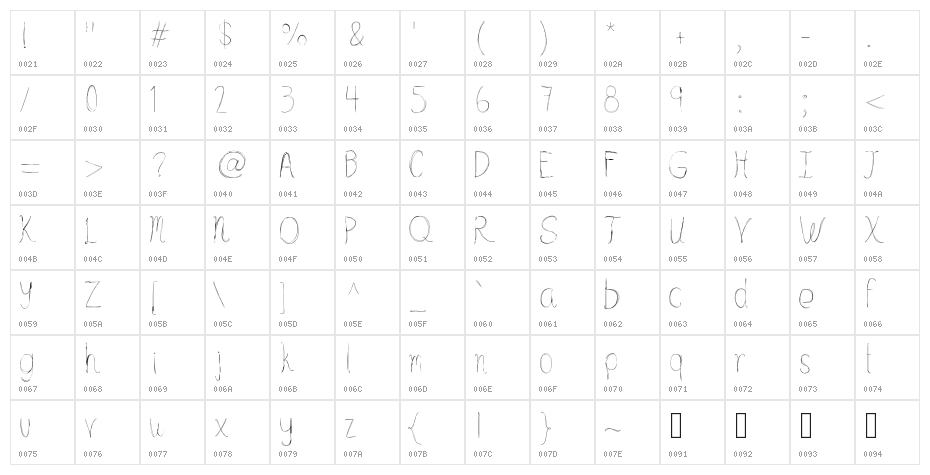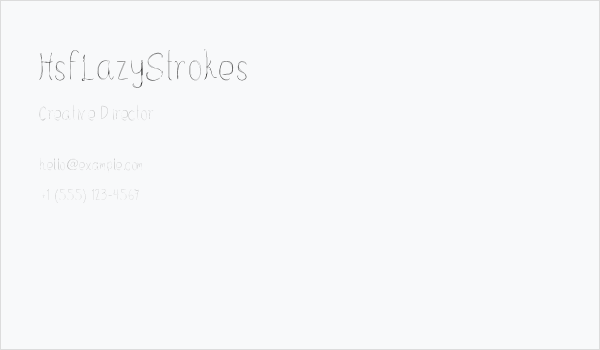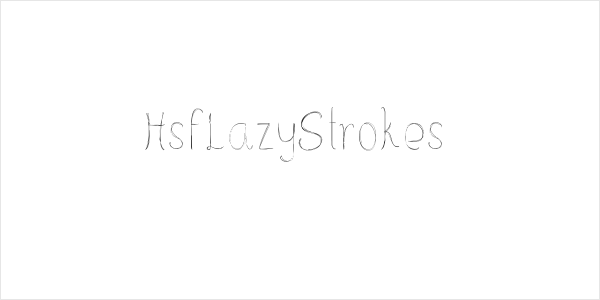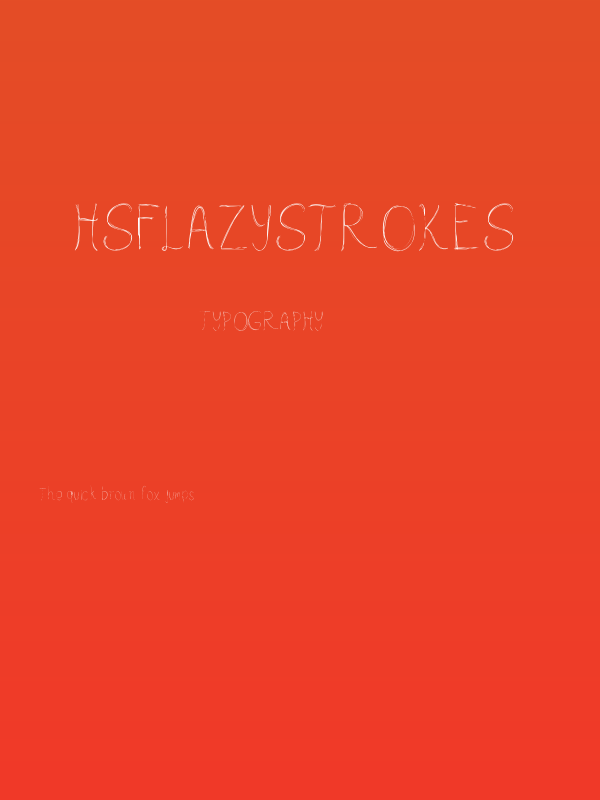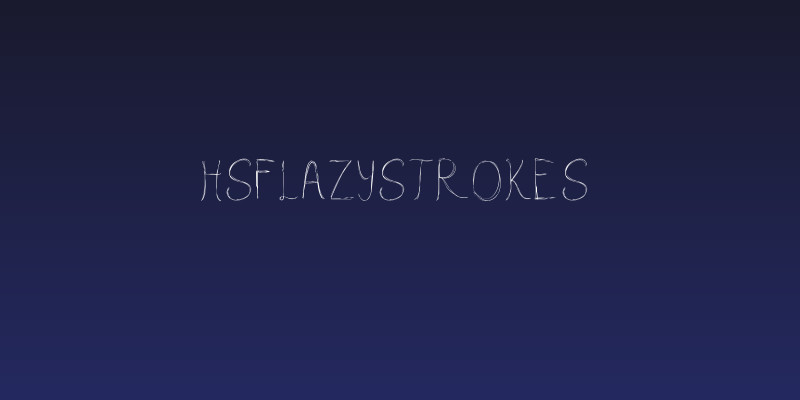
HsfLazyStrokes Font
HsfLazyStrokes Description
This font features a playful and whimsical handwritten style, characterized by its loose, sketch-like strokes. Each character appears as if it has been drawn with a quick, casual hand, giving the font a dynamic and lively appearance. The letters are slightly irregular, adding to the charm and informal feel. The overall design is airy and light, with a sense of movement and spontaneity. This font is perfect for projects that require a personal touch or a creative flair, such as invitations, greeting cards, or artistic posters.
| Proposed Projects | Ideal for creative projects like invitations, greeting cards, and artistic posters. |